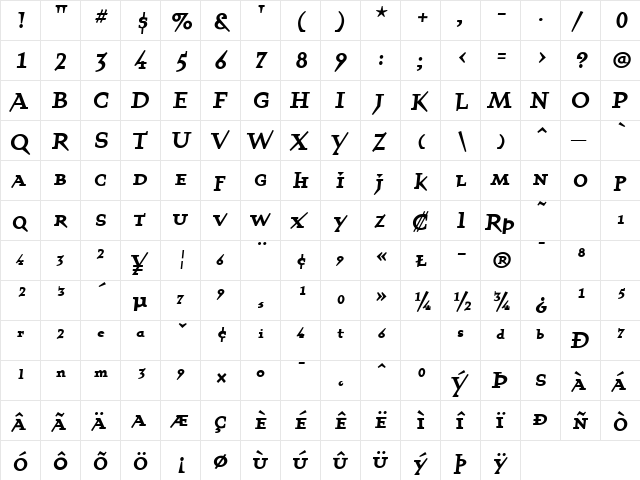
QuartetSmallcapsBold Regular
Design Context for QuartetSmallcapsBold Typeface
QuartetSmallcapsBold is a composed and adaptable typeface that performs quietly and consistently across a wide range of design contexts. The heavy weight commands attention and anchors typographic hierarchies.